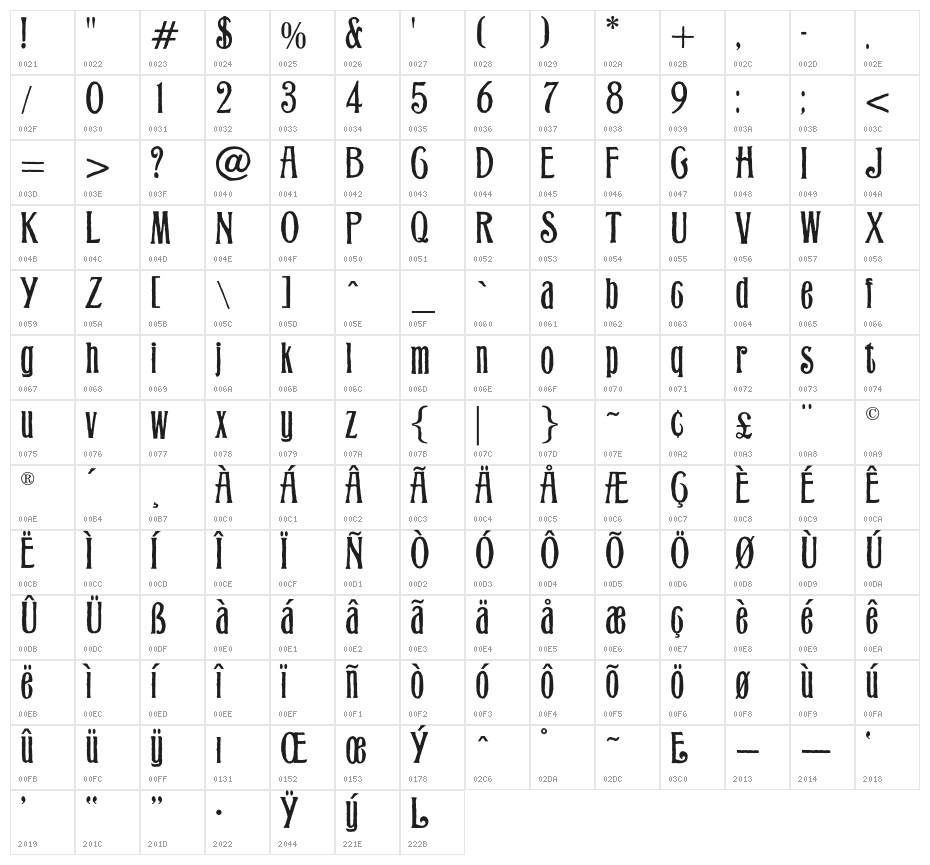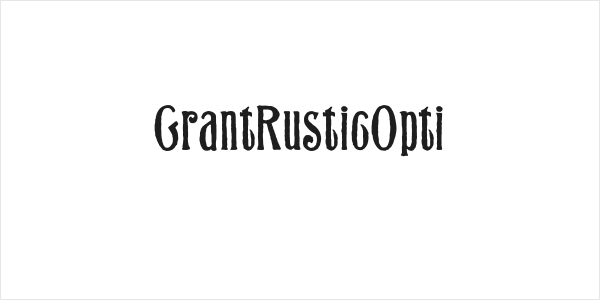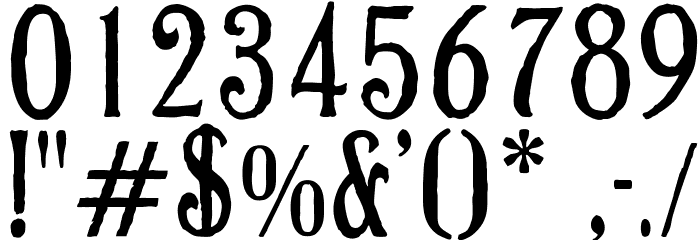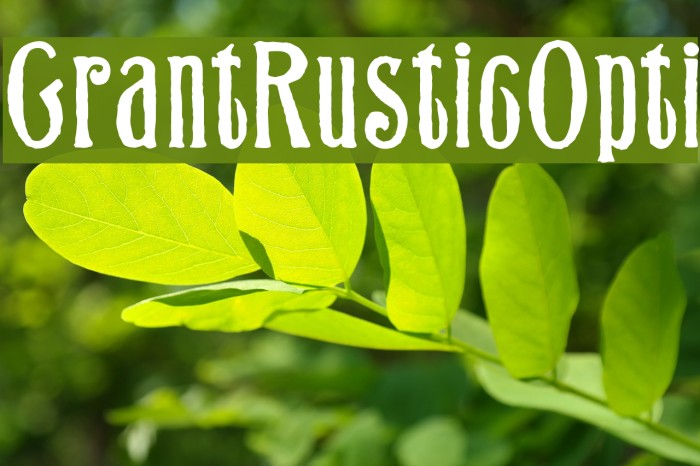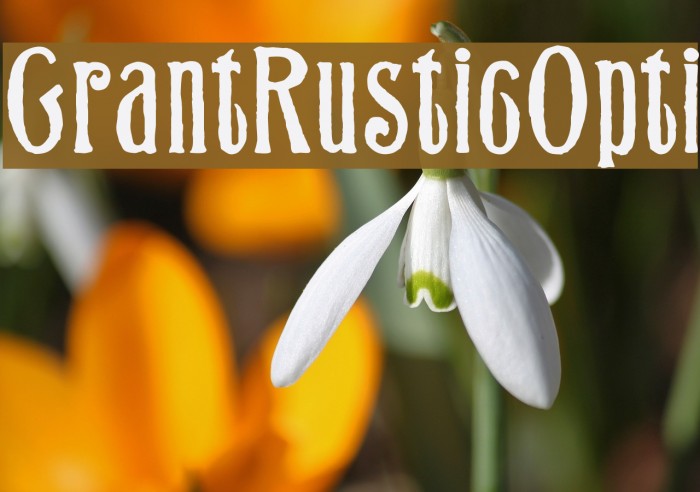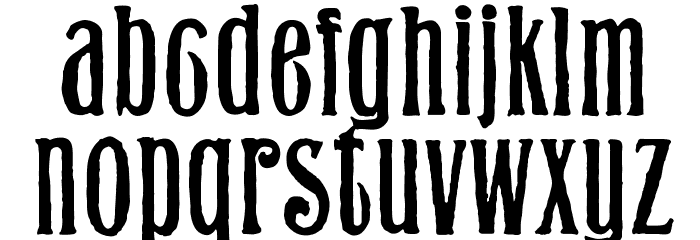
GrantRusticOpti Font
GrantRusticOpti Description
This font features a rustic and handcrafted appearance, characterized by its uneven strokes and slightly irregular shapes. The letters have a bold presence with a touch of vintage charm, making them stand out with their unique personality. The uppercase and lowercase letters maintain a consistent style, with the uppercase being slightly taller and more pronounced. The numbers and special characters are designed to match the overall aesthetic, providing a cohesive look. The font's organic feel is reminiscent of hand-painted signs, adding a personal and artistic touch to any design.
| Proposed Projects | Ideal for projects that require a personal touch, such as invitations, posters, branding for artisanal products, or any design seeking a vintage or handcrafted look. |